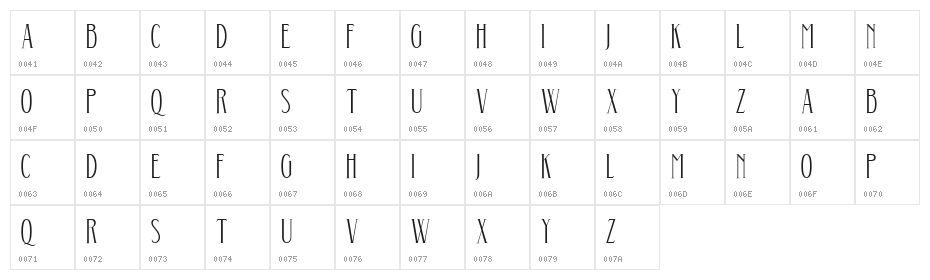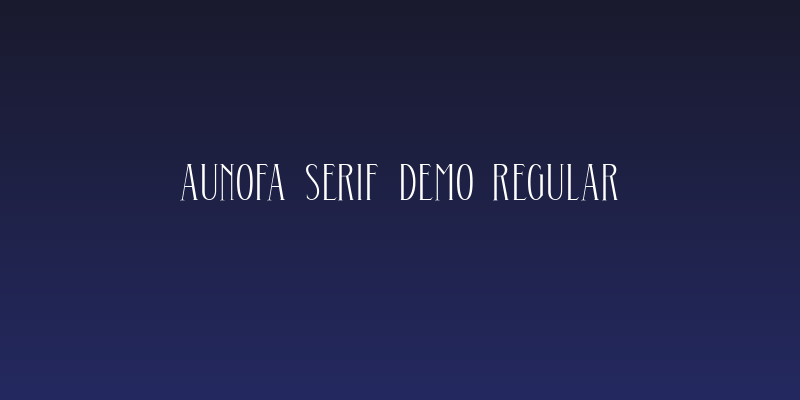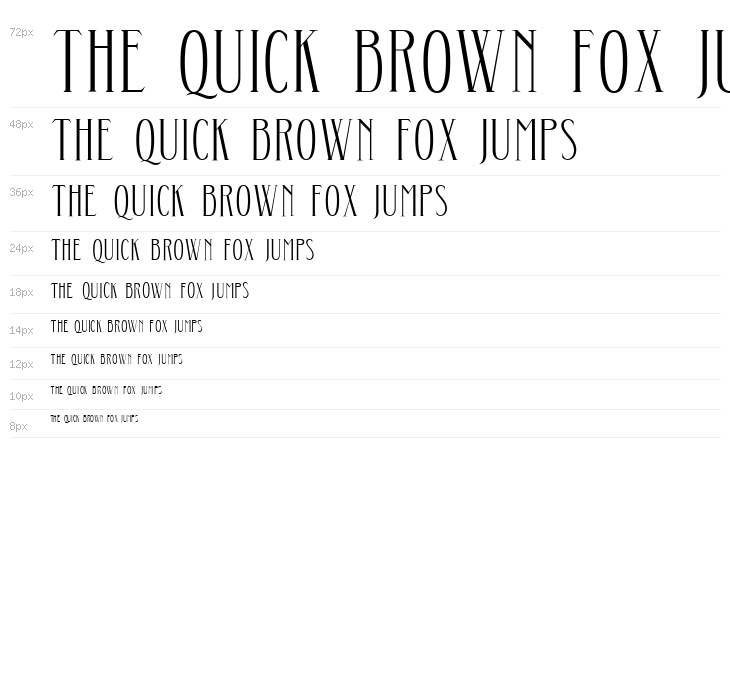
Aunofa Serif DEMO Regular Font
Aunofa Serif DEMO Regular Description
This font features a distinct serif style with elongated, elegant letterforms. The vertical strokes are prominent, giving it a tall and slender appearance. The serifs are sharp and pronounced, adding a touch of sophistication and formality. The overall design is clean and refined, making it suitable for upscale branding and editorial use. The characters are well-spaced, ensuring readability while maintaining a stylish look. This font is versatile, offering a classic yet modern aesthetic that can enhance various design projects.
| Proposed Projects | Ideal for luxury branding, editorial layouts, wedding invitations, and high-end product packaging. |